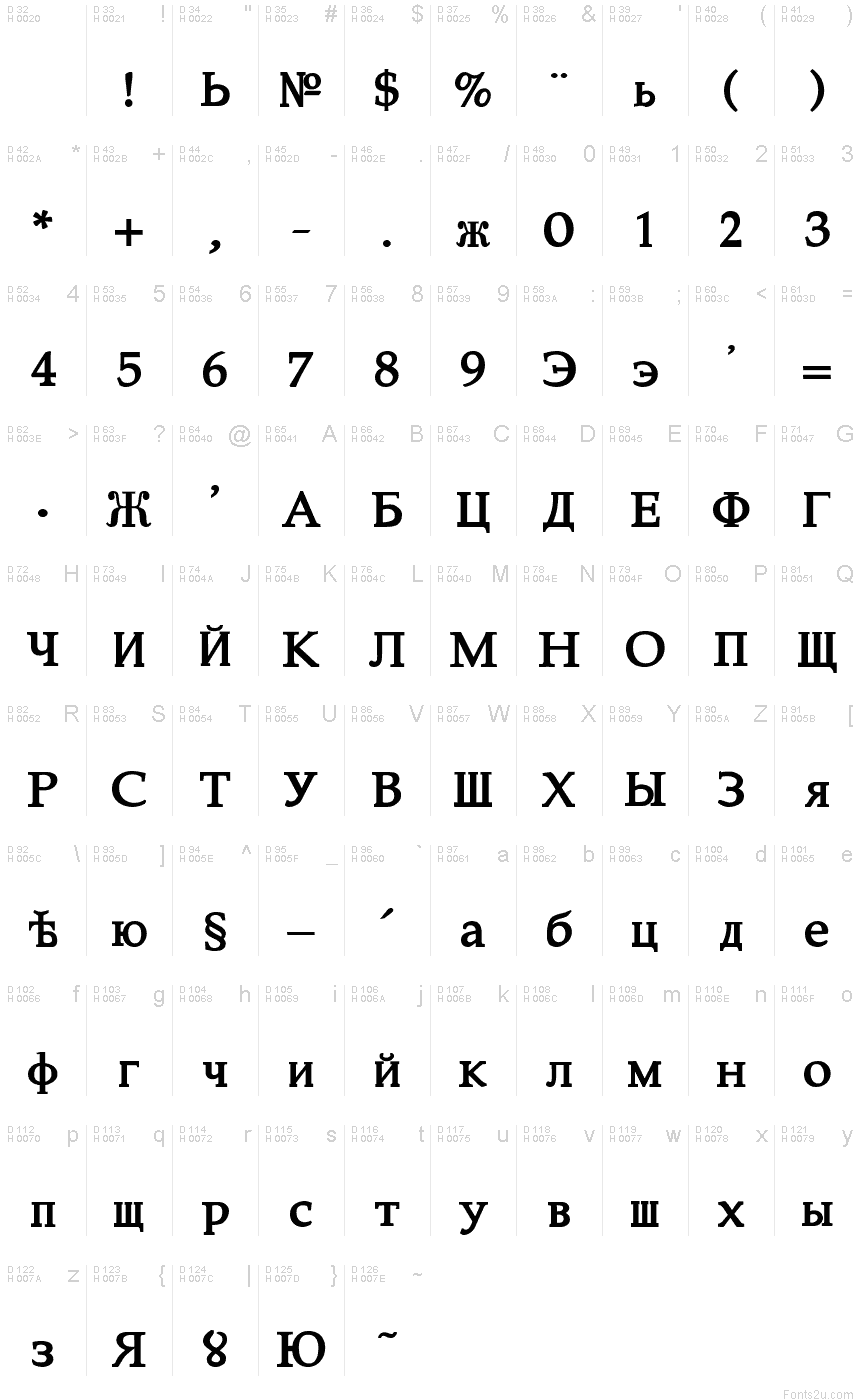
Constantin Bold, designed by L. Jake Jacobson of the University of Pittsburgh, is a free Russian-style display font with emphatic serif forms. Broad strokes and wedge-like serifs give the letters a stern, monumental profile.
Historical publishing and theatrical posters benefit from its formal weight and resemblance to Cyrillic lettering, particularly for Soviet-era subjects. The same severe geometry also suits vodka packaging and strategy-game titles, turning familiar Latin text into a deliberate reference to Russian graphic culture.